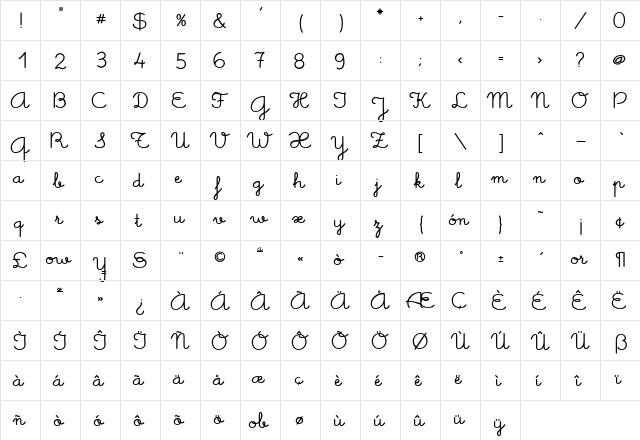
Memimas Regular Font Preview
Memimas Regular
Memimas Regular Font Details
Design Context for Memimas Typeface
Memimas takes a measured approach to typography — its balanced proportions and neutral character make it a reliable workhorse for both digital and print work.